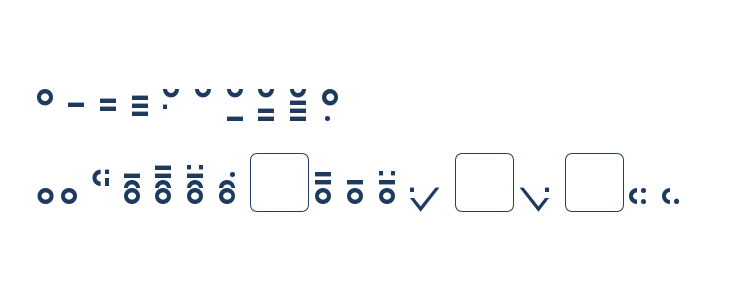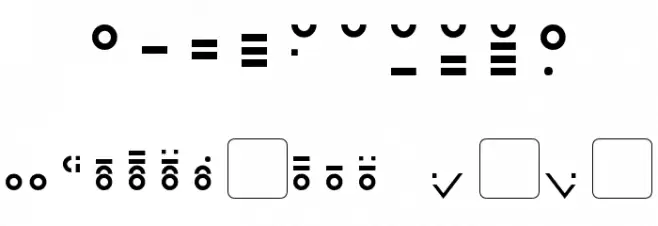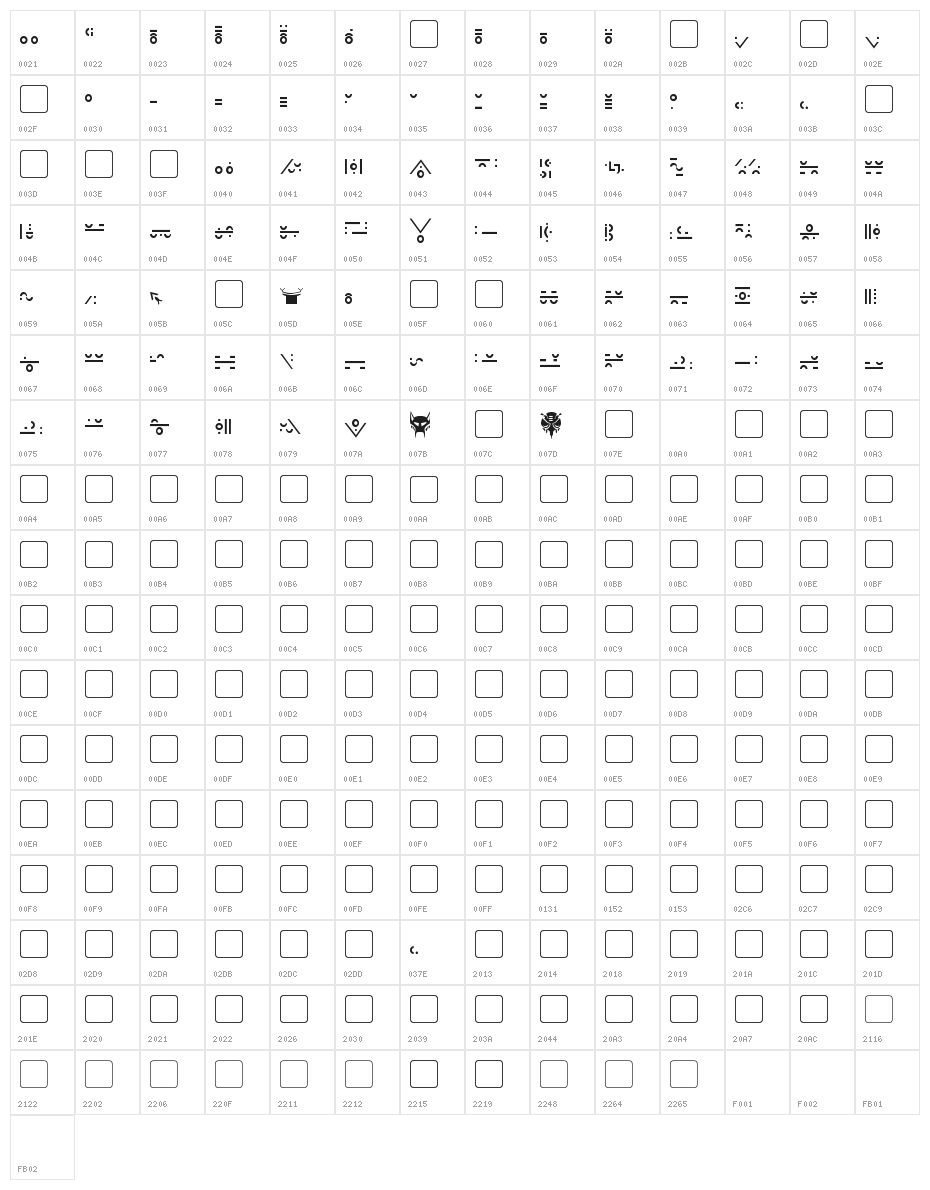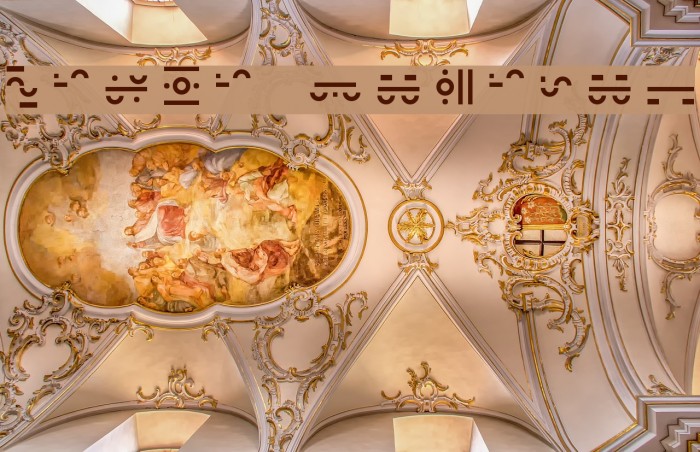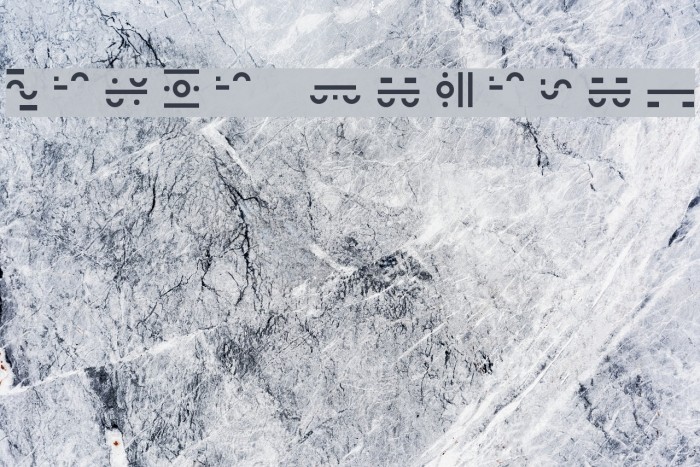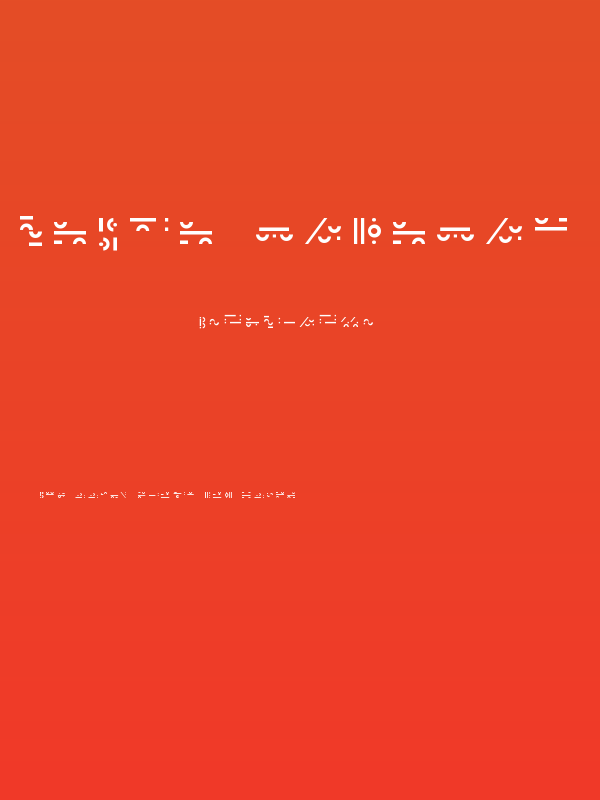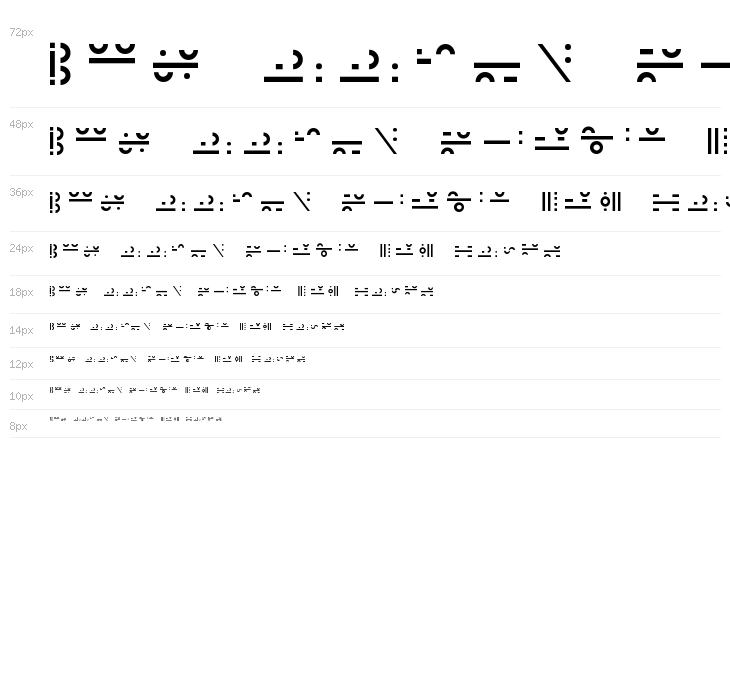
Giedi Maximal Font
Giedi Maximal Description
This is not a valid font. The image appears to contain symbols or a constructed script rather than a standard alphabetic font. The characters are highly stylized and do not correspond to typical Latin alphabet characters or numerals. They feature a combination of geometric shapes, lines, and dots, creating a unique visual language that may be used for artistic or fictional purposes.
| Use Case | Artistic projects, fictional languages, decorative design. |
| Proposed Projects | This script could be used in creative projects such as fictional languages in games, movies, or books, or as decorative elements in graphic design. |